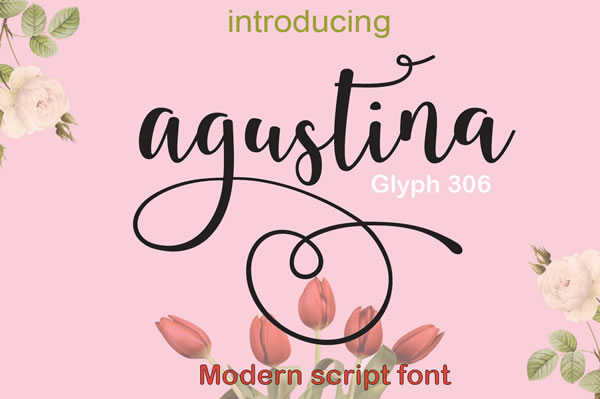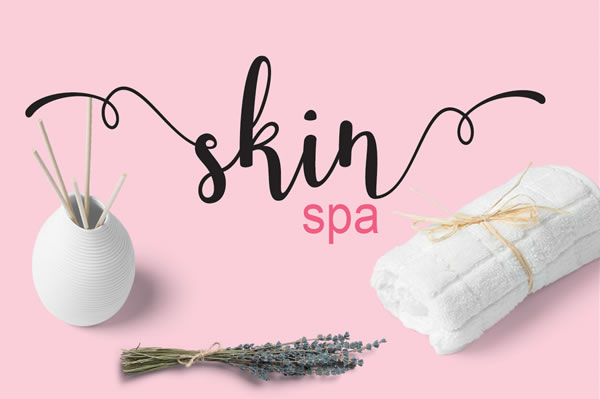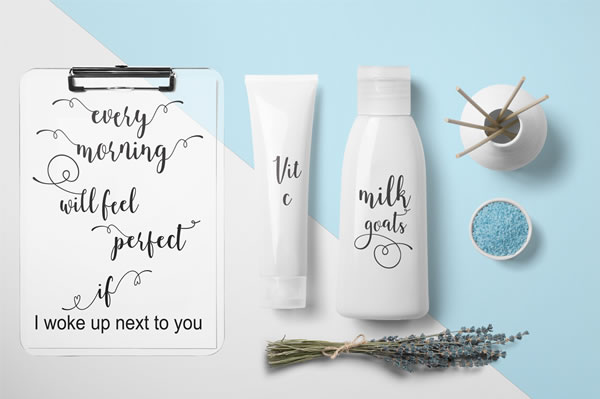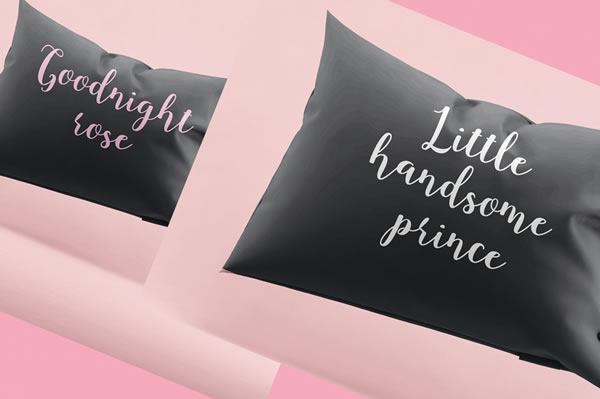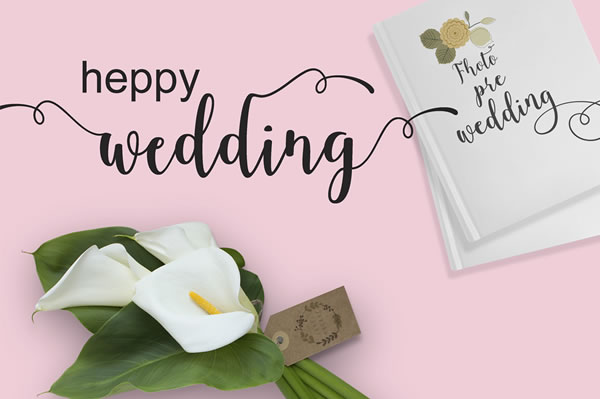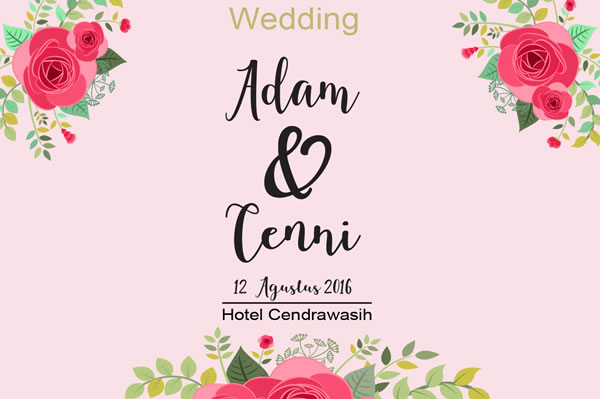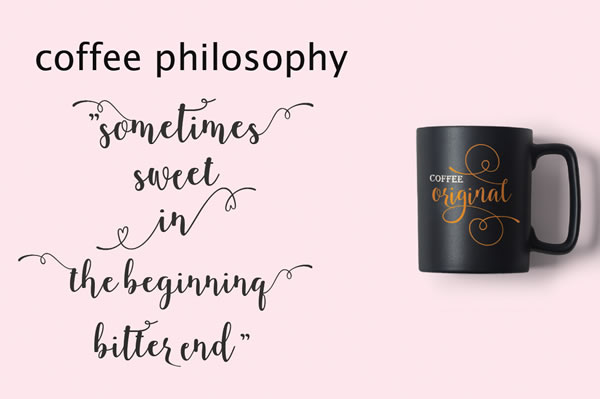
Agustina Font
About Agustina Font
Agustina is a elegant calligraphy style font that has a dancing baseline. This beautiful font has a very elegant touch which looks great on classy designs such as invitations.
The Agustina font features:
Initial Alternates
Terminal Alternates
Standard Ligatures
Stylistic Sets
Basic Latin (a-z & A-Z)
Numbers & Punctuation